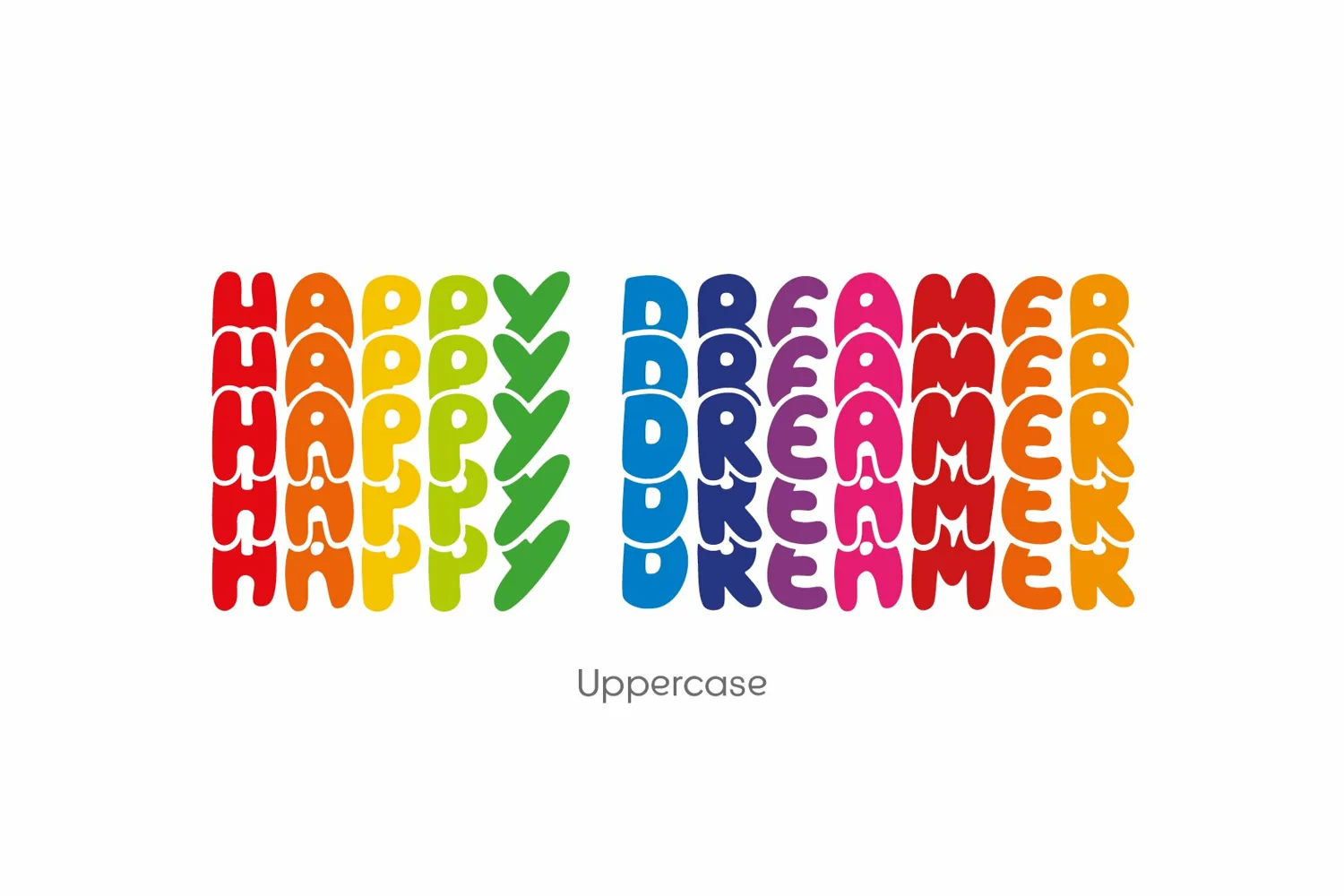
Happy Dreamer is a stacked font to have fun with. The upper case letters are plain and the lowercase letters have snowflakes on them.
This font is perfect for shirts, mugs, posters, social media, signs and more!